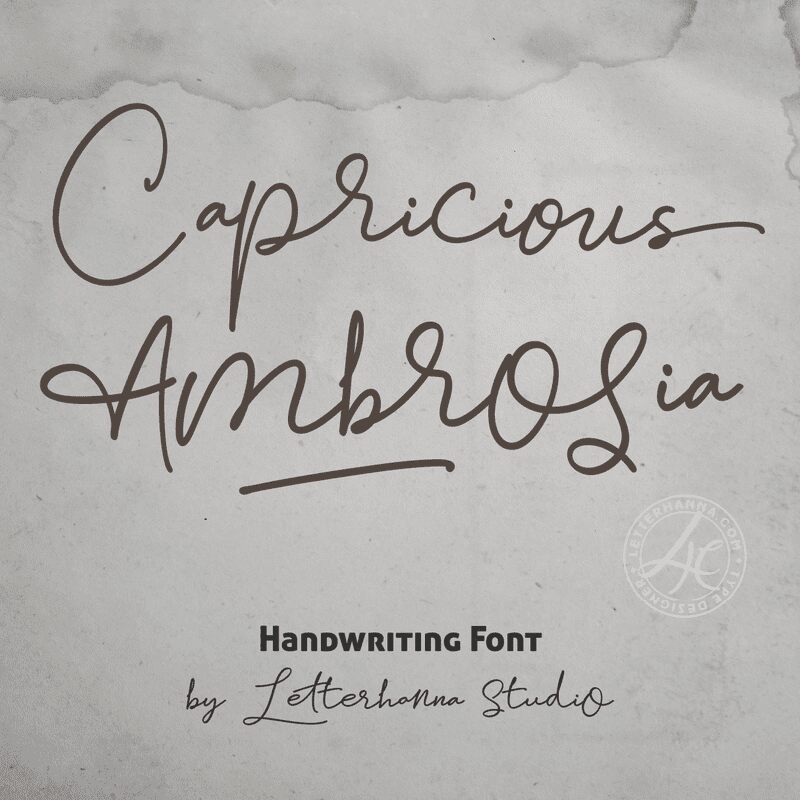
Capricious Ambrosia font designed by Letterhanna Type Foundry is a handwritten font that has distinct and interesting characters. The font, available as a free font for personal use, is expressive and playful. It massively mimics realistic handwriting so much so that you’ll forget it’s an artificial font. The secret of the design of this font lies in the brain and hand coordination and the smooth flow of fluid letters and words.
As it appears casual and dynamic, this typeface allows the reader to get closer to the written texts. Hence, you’re recommended to use it in greeting cards, personal branding, display, clothes design, and similar places. The font is suitable for branding and packaging, editorial design, posters, books, and book covers. This includes large advertising environments such as billboards.